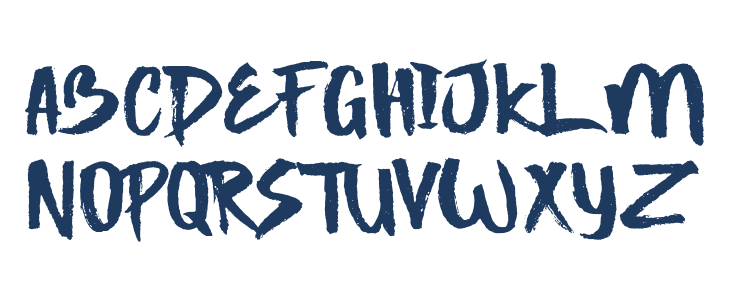
Click to find the best 86 free fonts in the bold big style. It’s a very visual font, best used at large sizes to command attention. Bold fonts help to attract the viewer’s attention and draw them towards your product or service.
Strong Concrete Bold Is A Font That Answers Sharing Questions About Fonts Suitable For Most Designs.
Click to find the best 86 free fonts in the bold big style. It’s a very visual font, best used at large sizes to command attention. Adam is a sans serif typeface inspired by futura, perfectly suited.
There Are Quite A Few Reasons Why People Love Bold Fonts.
Fun bold fonts, like this one, can make such a memorable impression. Strong bold is a handwriting font design published by madededuk. Sirens a casual and modern sans.
The Strong Character And Charisma Of This Font Will Add Value To Your Design.
50 free bold fonts built for impact in any design 01. Strong bold by bahrul ulum In this post, we present to your some of the best bold and thick fonts you can use to create more attractive titles.
Use bold fonts to emphasize text or to make a contrast between body and headline text. The special things is this font comes with alternates in each lowercase! The strong bold font has been downloaded 18,135 times.